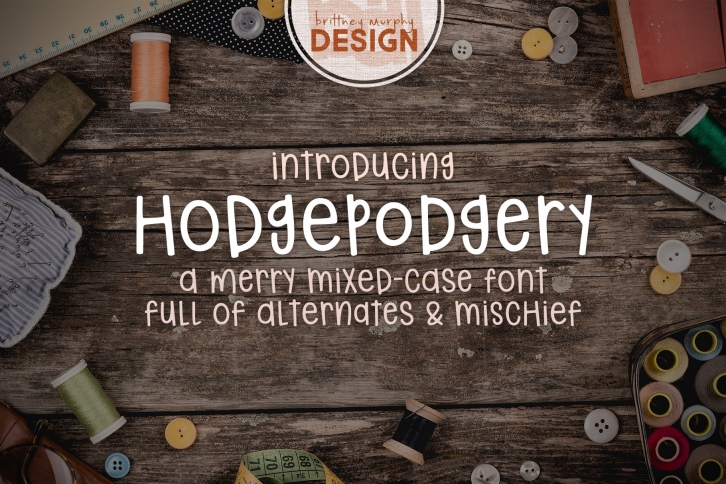
Hodgepodgery is a beautiful font that was designed by Brittney Murphy Design. It's a great choice for designers and creatives who need such a font. It was released on December 3, 2018 and the file size is 20.68 MB. Hodgepodgery may give a more youthful, expressive and casual look to your project. It is a very beautiful, refined, elegant, and high-quality font.